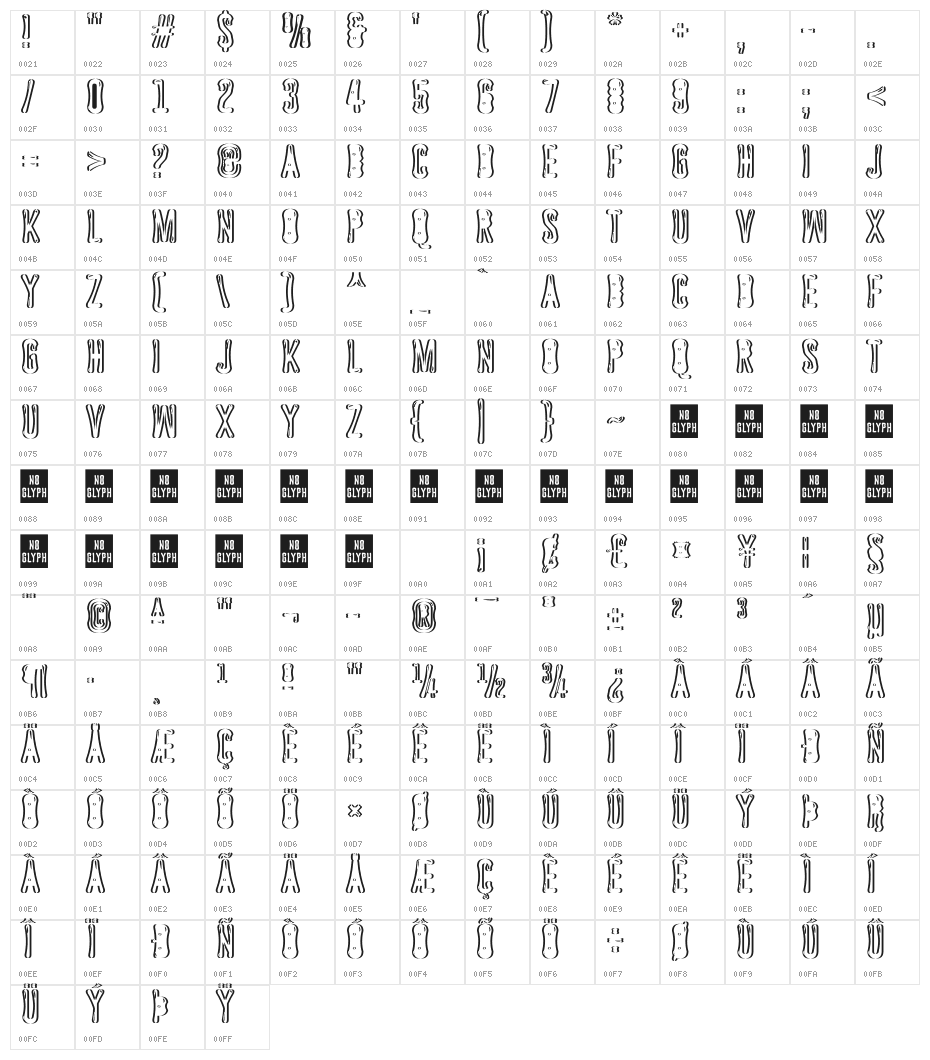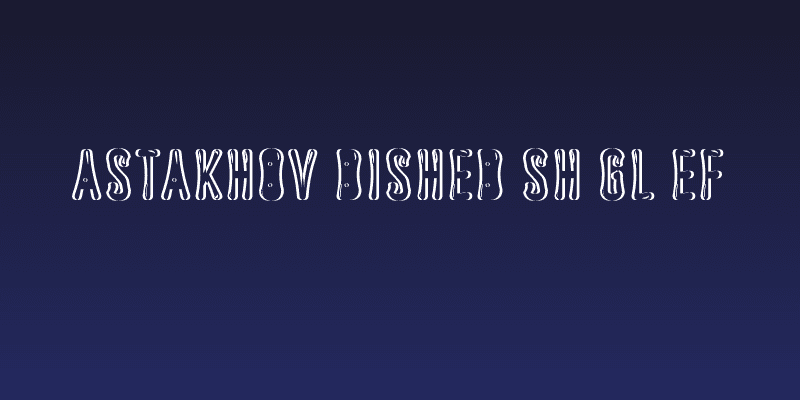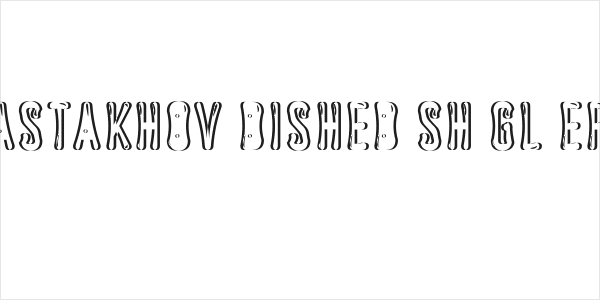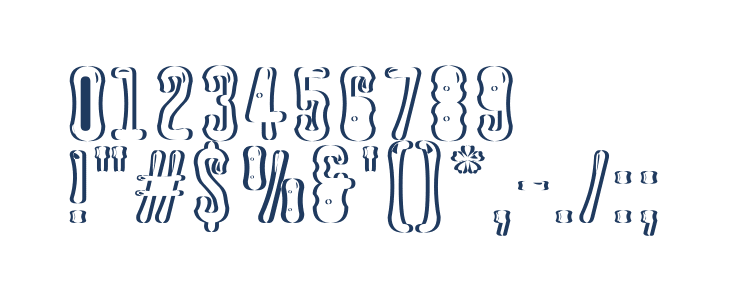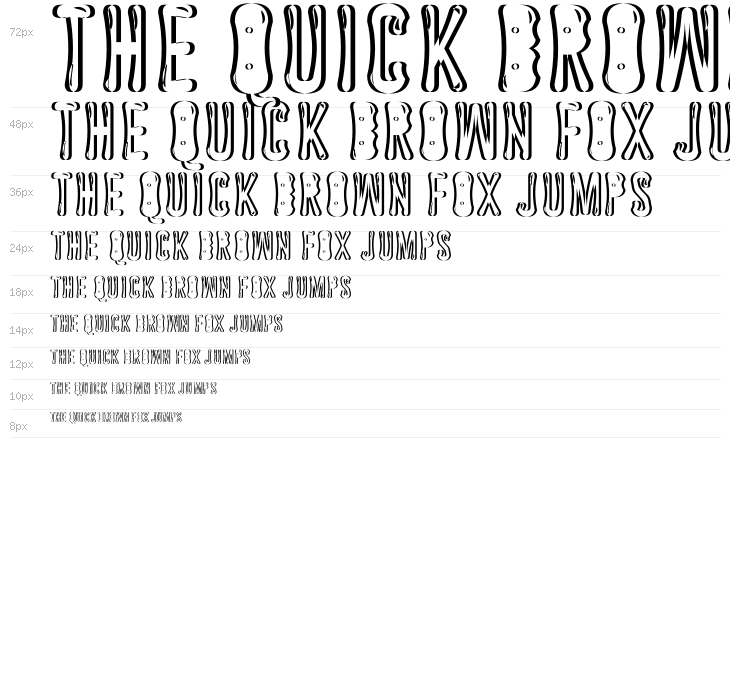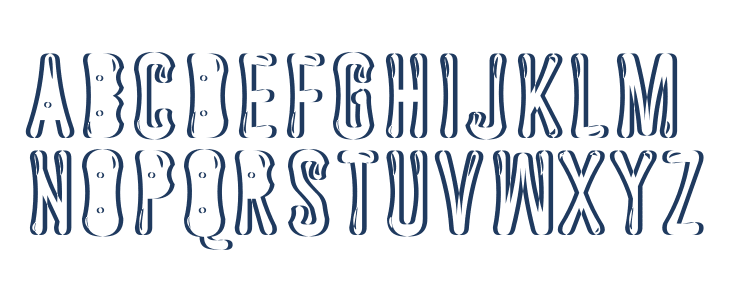
Astakhov Dished Sh Gl EF Font
Astakhov Dished Sh Gl EF Description
This font features a unique, playful design with a three-dimensional effect that gives each character a sense of depth and movement. The letters are bold and have a distinct shadowing that creates an illusion of layers. The style is decorative, with whimsical curves and a slightly irregular form that adds to its charm. The font includes both uppercase and lowercase letters, numbers, and a variety of special characters, making it versatile for creative projects. Its eye-catching appearance makes it ideal for designs that require a fun and engaging look.
| Proposed Projects | Ideal for posters, children's book covers, playful branding, and creative invitations. |